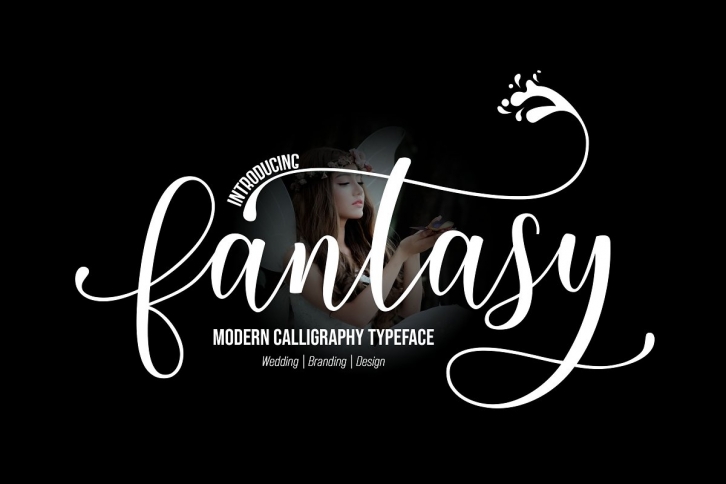
Fantasy Script is a modern calligraphy font with the current handwriting style, this font is perfect for branding, wedding invites, magazines, mugs, business cards, quotes, posters, and more, you can try first if you want to buy this font.
Fantasy Script is equipped with 299 glyphs. and by having many of these glyphs there will be able to choose the letters according to your likes, lots of variations and options for each letter, so you can customize on your design choices.